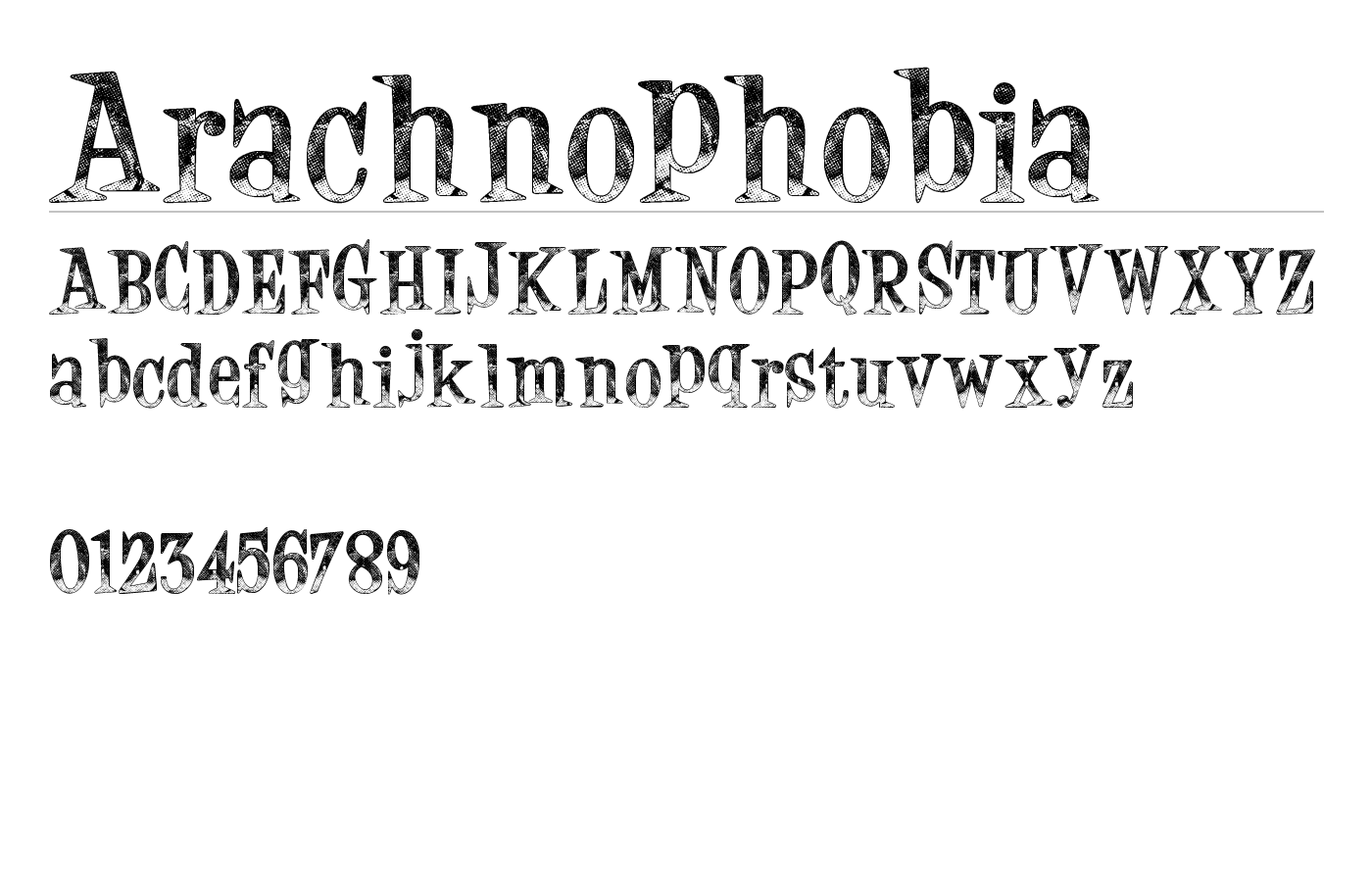
Arachnophobia is a decorative serif font with a vintage, distressed texture that gives it a spooky, eerie vibe. The font features bold, moderately condensed letterforms with high contrast between thick and thin strokes, and strong triangular serifs that add a dramatic flair. Ideal for Halloween-themed designs, posters, or any creative project seeking a haunting and gothic atmosphere, this font stands out with its unique, textured character and playful yet ominous personality.